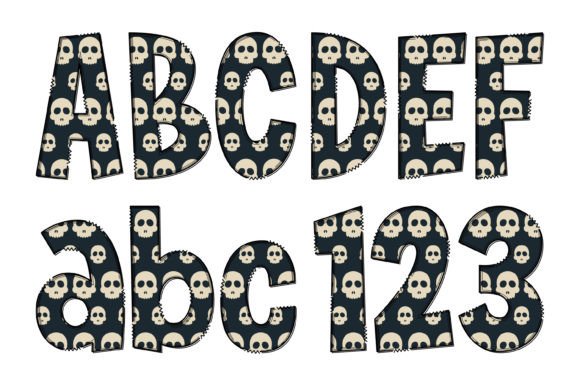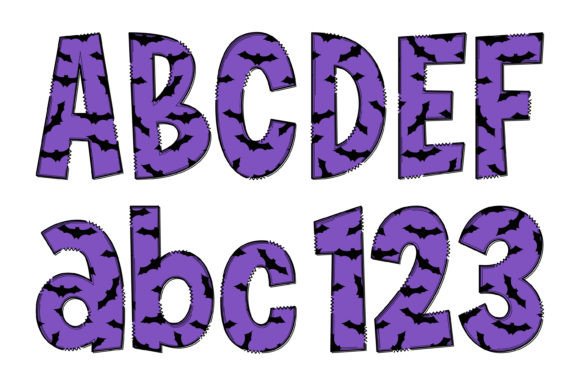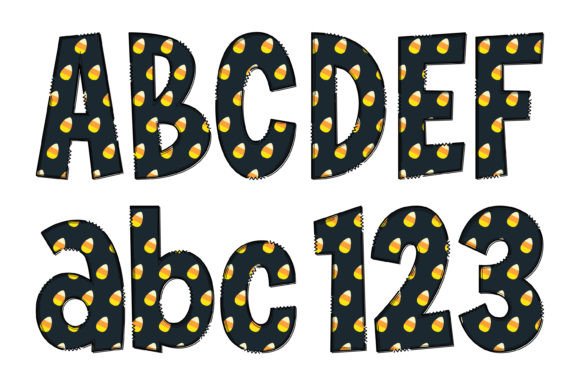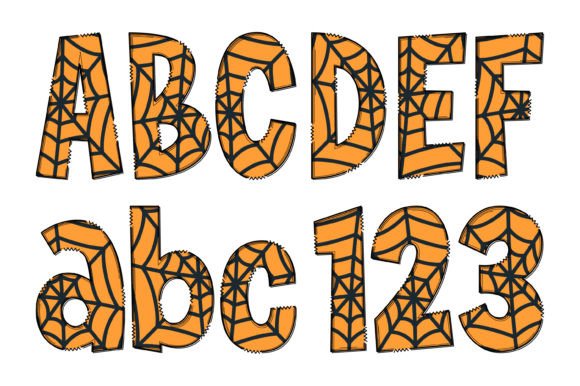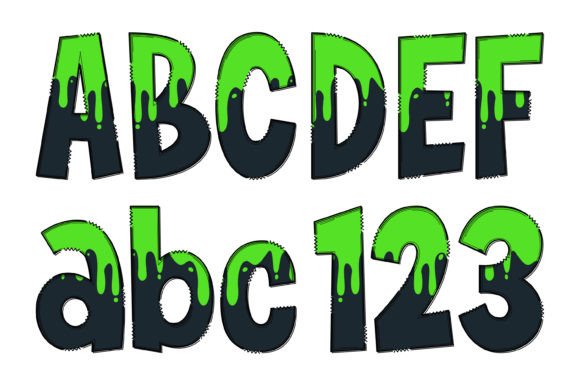
Happy Halloween Collection Font: Add a Spooky Touch to Your Designs
Are you looking for a font that captures the festive spirit of Halloween? Look no further than the Happy Halloween Collection Font! This delightful color font collection is perfect for adding a fun and whimsical vibe to your Halloween-themed invitations, decorations, and greeting cards.
What is Happy Halloween Collection Font?
Happy Halloween Collection Font is a unique and creative font designed specifically for the spooky season. It’s a color font collection, which means it comes with a range of colors that can be used to add an extra layer of depth and interest to your designs. The font is made up of playful and festive characters, including letters, numbers, and symbols, all with a Halloween theme.
Features of Happy Halloween Collection Font
- Color Font Collection: Happy Halloween Collection Font comes with a range of colors that can be used to add a pop of color to your designs.
- Playful and Festive Characters: The font includes a range of playful and festive characters, including letters, numbers, and symbols, all with a Halloween theme.
- Perfect for Halloween-themed Designs: This font is specifically designed for Halloween-themed designs, making it perfect for invitations, decorations, and greeting cards.
Uses of Happy Halloween Collection Font
Happy Halloween Collection Font is a versatile font that can be used for a range of Halloween-themed designs, including:
- Halloween Invitations: Create spooky and fun invitations for Halloween parties and events.
- Halloween Decorations: Use the font to create festive decorations, such as banners, garlands, and signs.
- Halloween Greeting Cards: Create spooky and fun greeting cards for friends and family.
- Halloween Crafts: Use the font to create festive crafts, such as Halloween-themed scrapbook pages and projects.
Benefits of Using Happy Halloween Collection Font
Using Happy Halloween Collection Font can add a range of benefits to your designs, including:
- Unique and Creative Designs: The font’s playful and festive characters can help you create unique and creative designs that stand out from the crowd.
- Professional-Looking Designs: The font’s high-quality design ensures that your designs look professional and polished.
Tips for Using Happy Halloween Collection Font
Here are some tips for using Happy Halloween Collection Font:
- Experiment with Colors: The font’s color collection offers a range of colors that can be used to add depth and interest to your designs.
- Mix and Match Characters: The font’s playful and festive characters can be mixed and matched to create unique and creative designs.
- Use with Other Fonts: Happy Halloween Collection Font can be used with other fonts to create a range of different design effects.
Happy Halloween Collection Font is a delightful color font collection that’s perfect for adding a fun and whimsical vibe to your Halloween-themed designs. With its playful and festive characters, easy-to-use design, and range of colors, this font is sure to be a hit with designers and crafters. So why not give it a try and see how it can add a spooky touch to your designs?